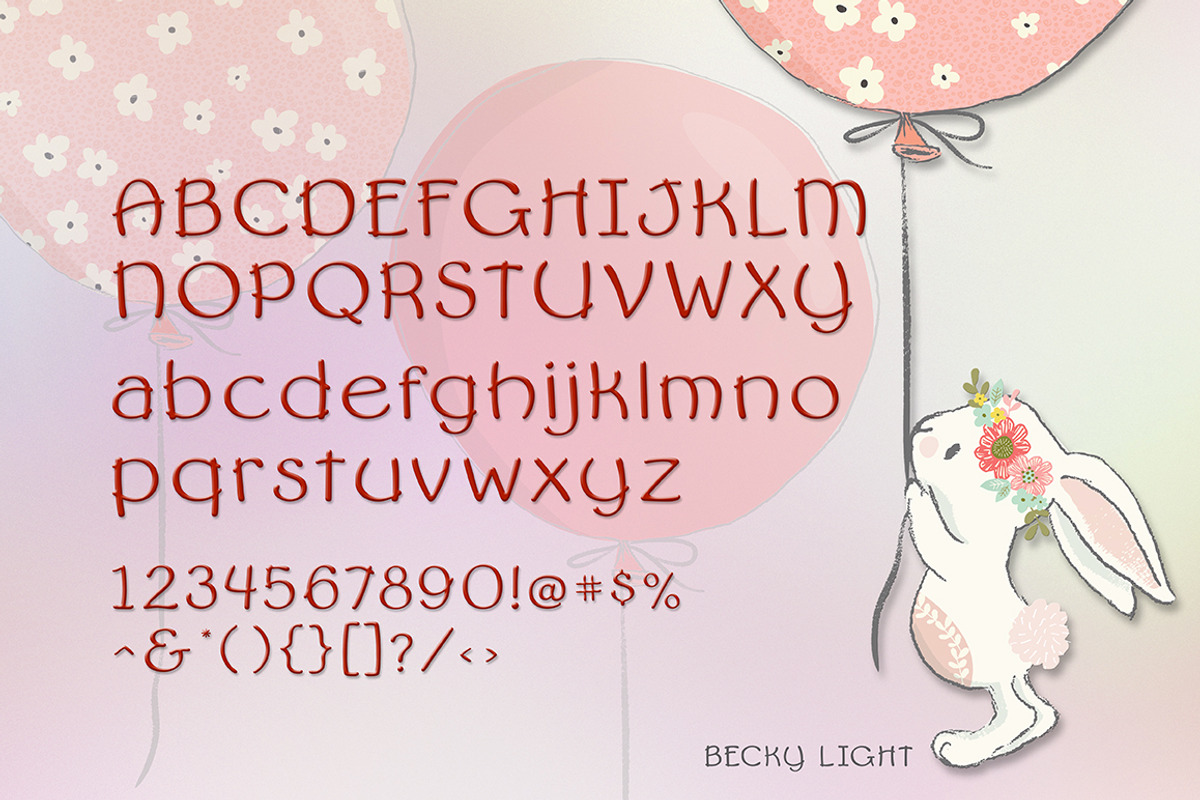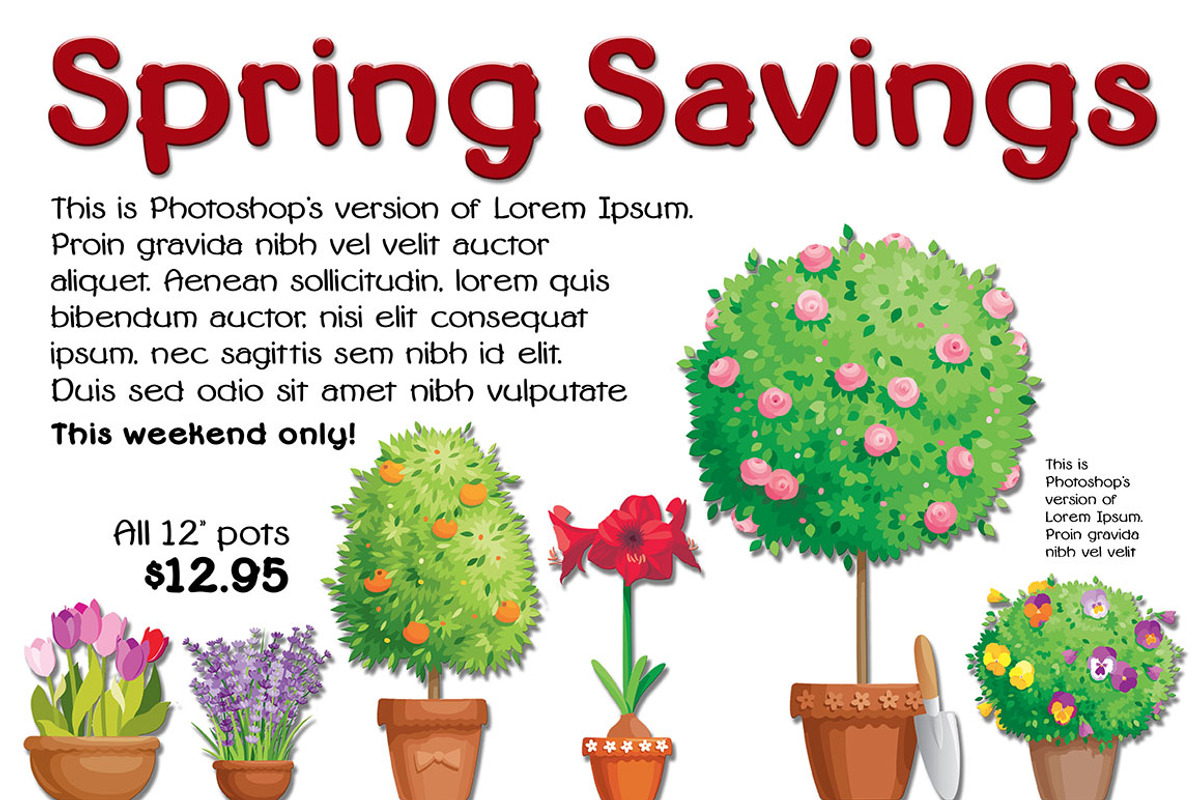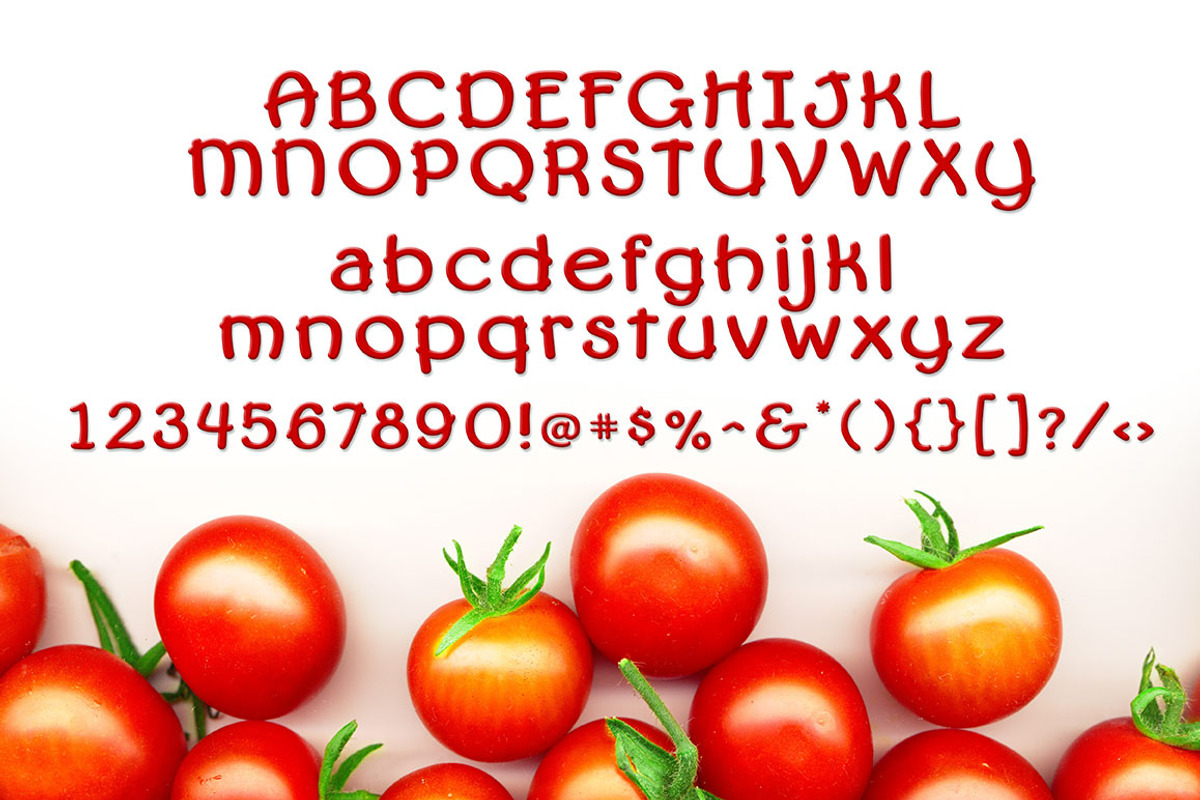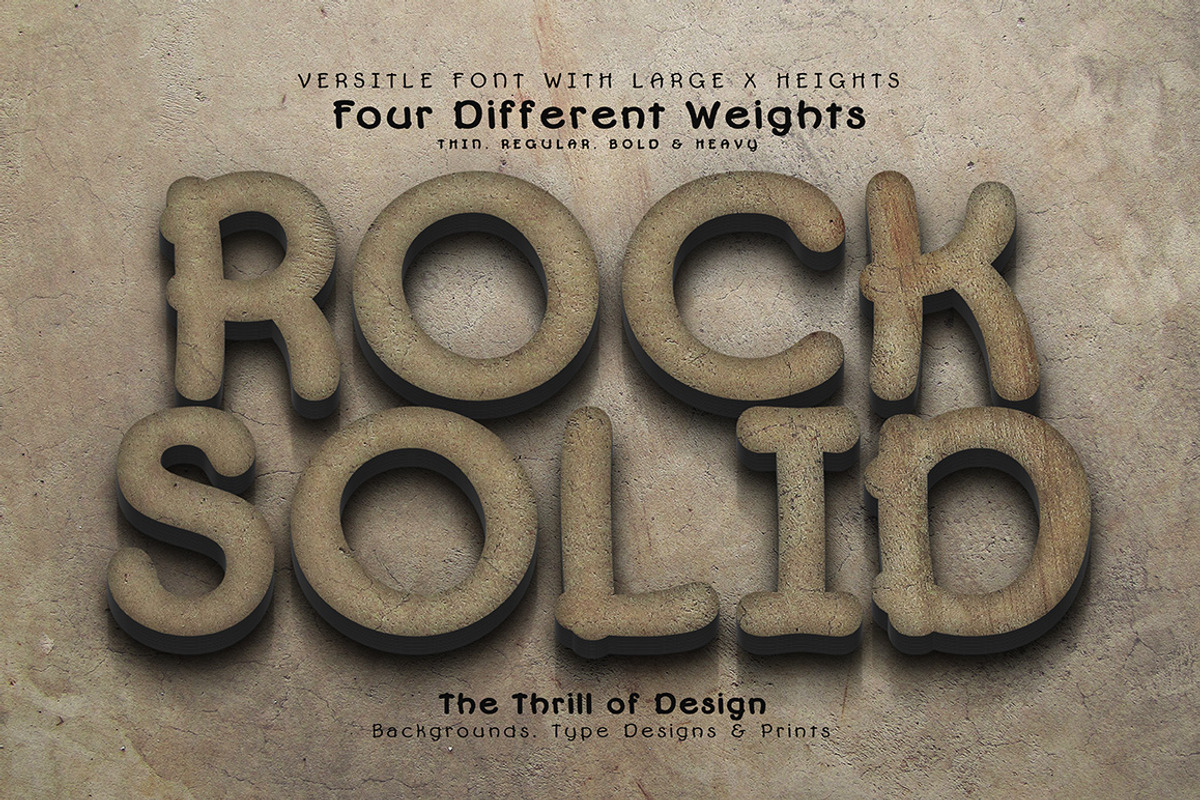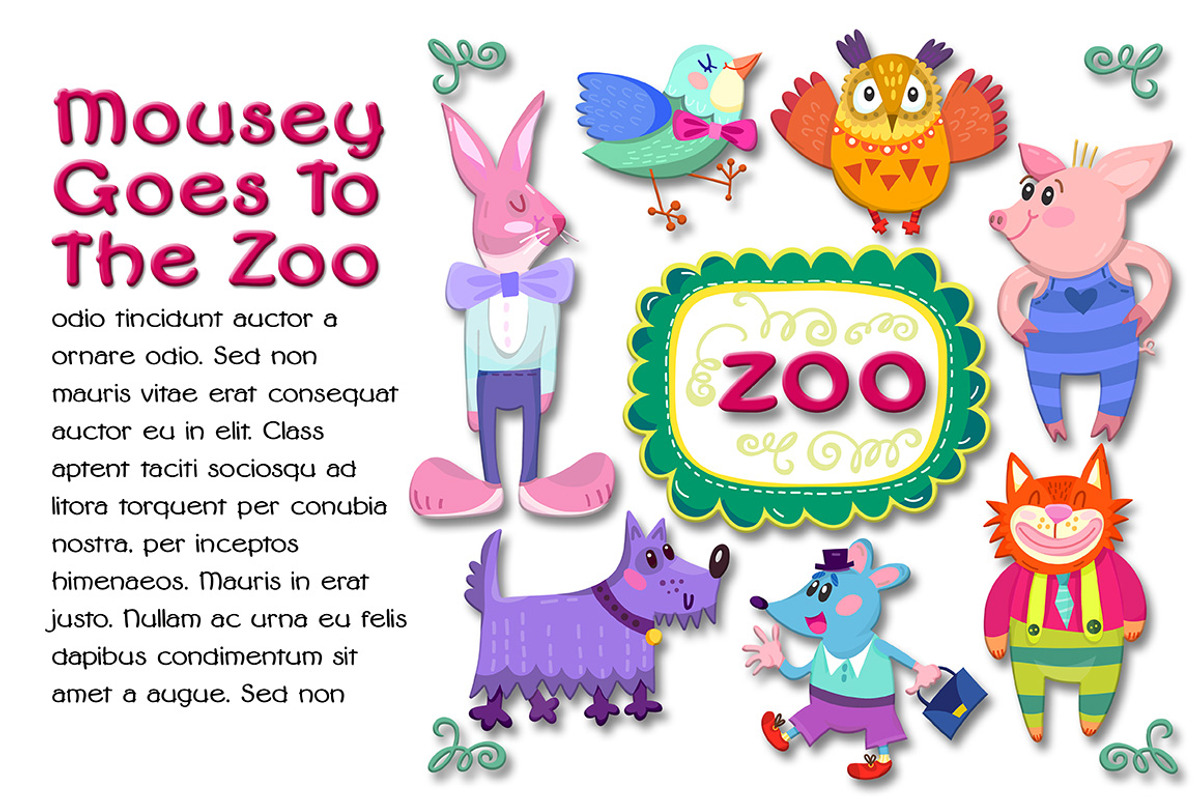
Becky Font Family
Becky Font Family by The Thrill of Design is a font selected for branding, posters, packaging, typography.
Why Becky Font Family is worth a look
Becky Font Family by The Thrill of Design fits naturally into Branding, posters, packaging, typography.